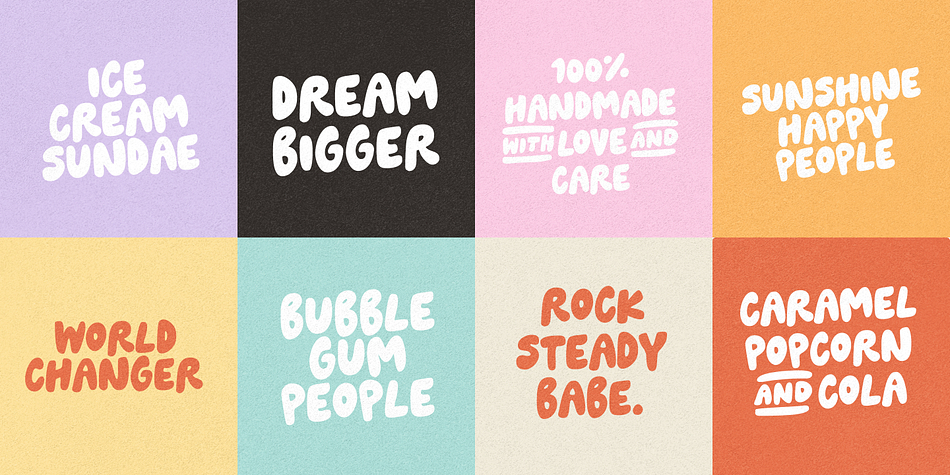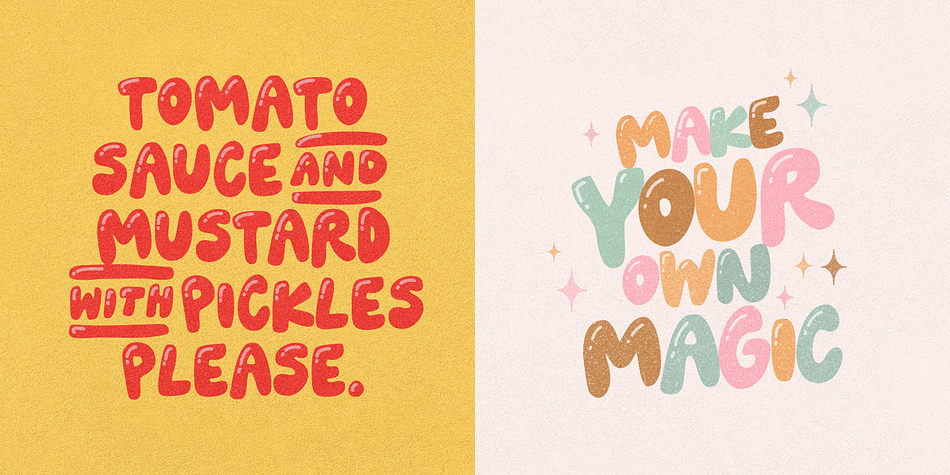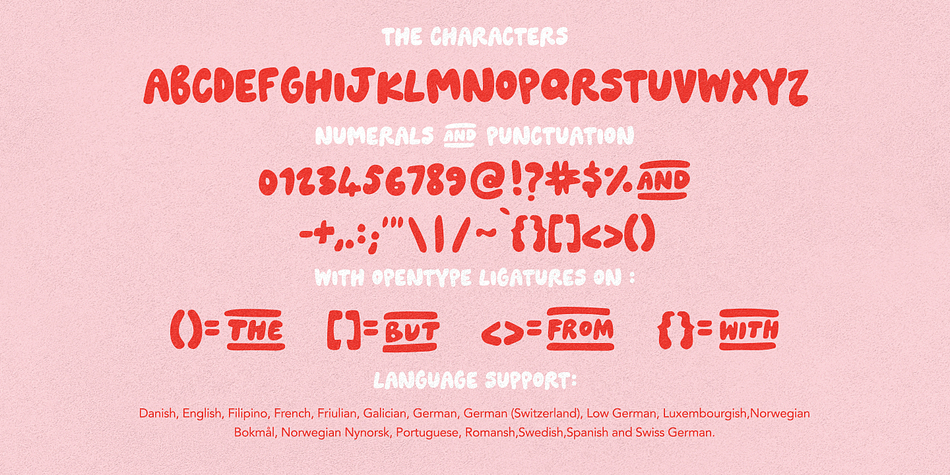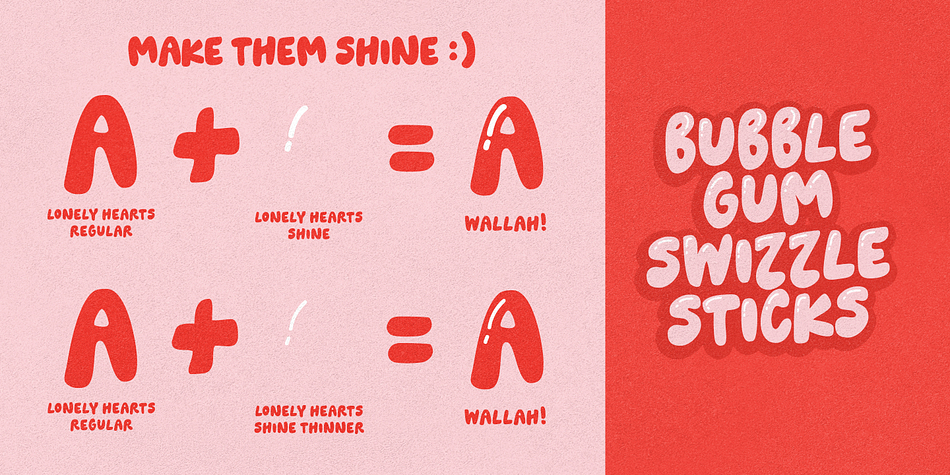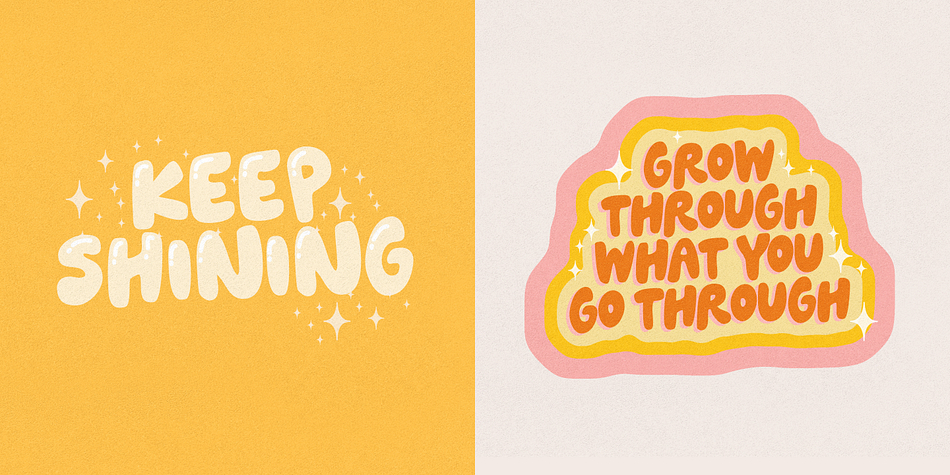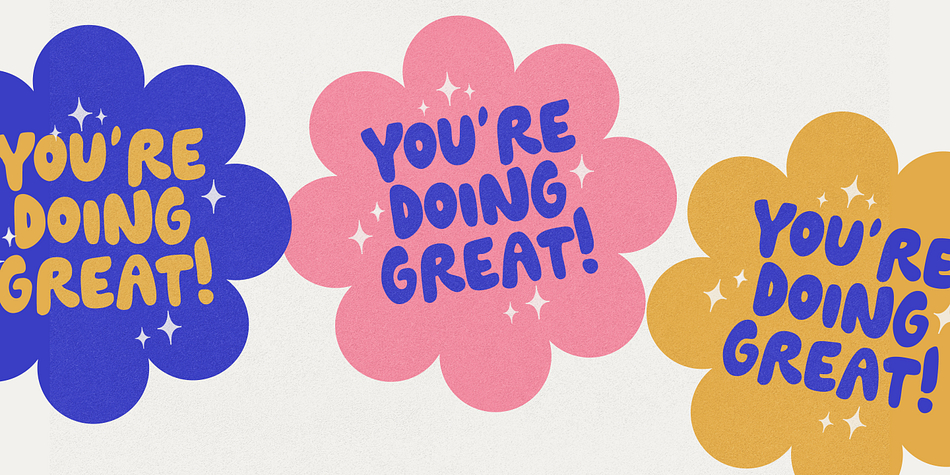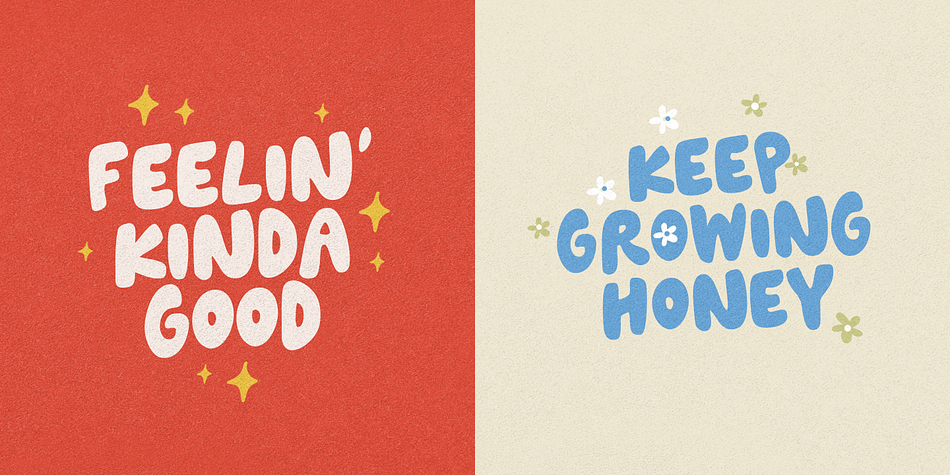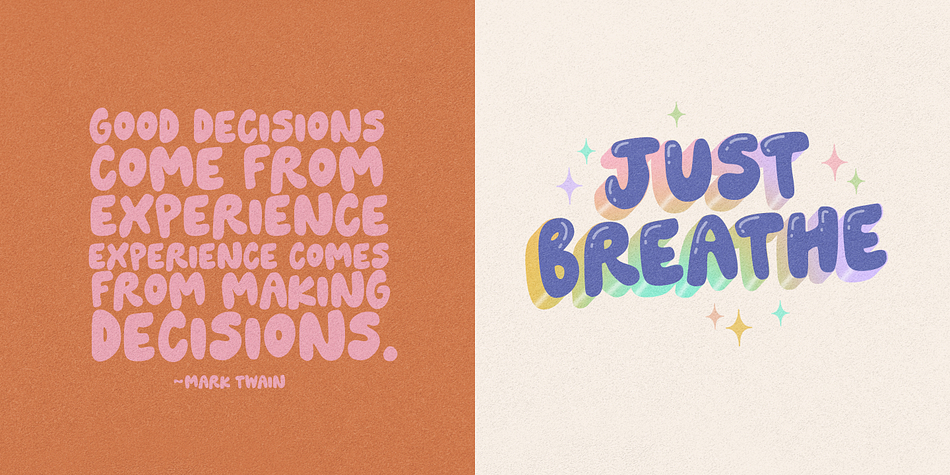
LONELY HEARTS
Designed by Nicky Laatz, Lonely Hearts is a hand display font family. This typeface has three styles and was published by Nicky Laatz.
Say Hello to Lonely Hearts! A fun bubble style font with 2 bonus layered fonts you can add on top for some shine! A thicker shine and a thinner shine are available - take your pick.
Super easy to use - with a couple of extra bonus catchwords (Namely :  The, But, From & With) in the Opentype features Ligatures section.
Ligatures to Catchwords :
() = THE
{}= WITH
<>= FROM
[]= BUT
Perfect for playful quotes, packaging, branding, invitations, greeting cards and so much more.